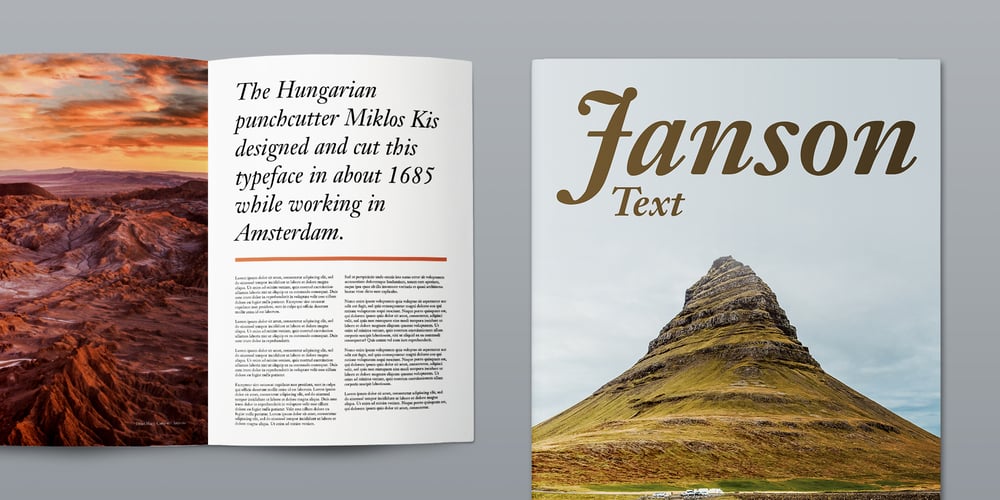
Janson Text Font Family was designed by Nicholas (Miklós) Tótfalusi Kis, D. Stempel AG and published by Linotype. Janson Text contains 4 styles and family package options. The Janson font was based on the matrices made for the typeface in the 17th century. It originated from the Dutch typeface designer Anton Janson and was cut by Nicholas Kis. The strong main strokes and fine hair strokes were influenced by the art of copper engraving. In 1983, Prof. Horst Heiderhoff led the expansion of the Janson into a font family with various stroke contrasts and gave it the name Janson Text.